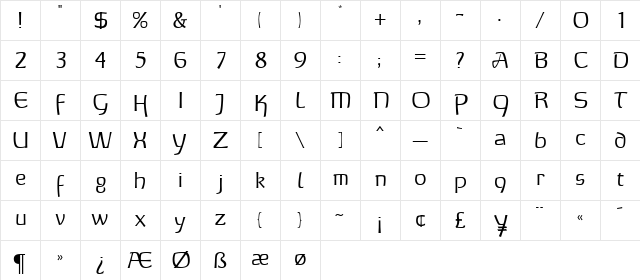
MichelinaMN Regular
Design Context for MichelinaMN Typeface
MichelinaMN is a composed and adaptable typeface that performs quietly and consistently across a wide range of design contexts.